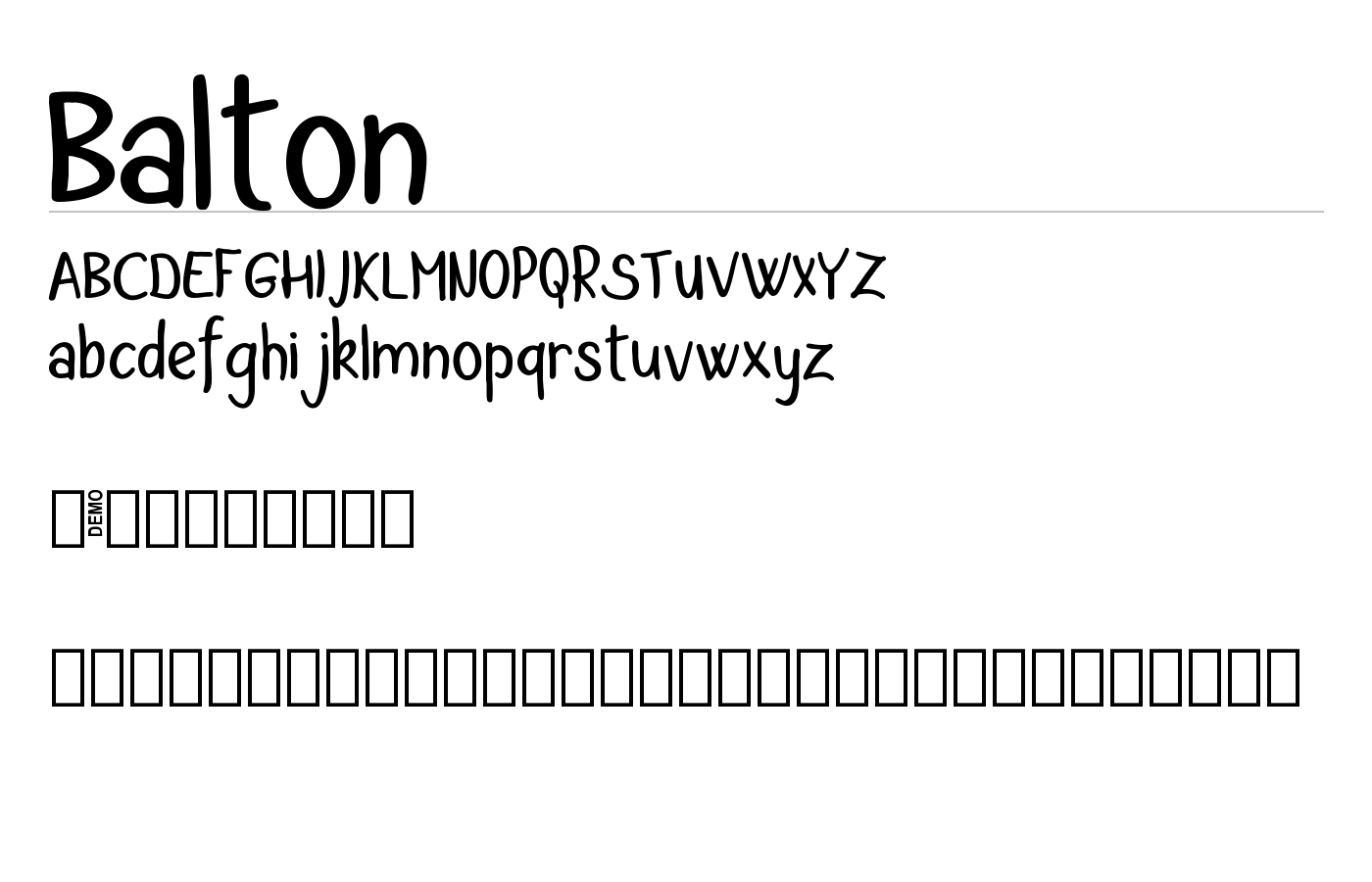
Balton is a playful, hand-drawn sans serif font with a casual, friendly vibe. Its irregular strokes and lively letterforms make it perfect for creative projects, children’s materials, or informal branding that aims to feel approachable and fun. This font works well in headlines, posters, and invitations where personality and warmth are key.
Balton Font